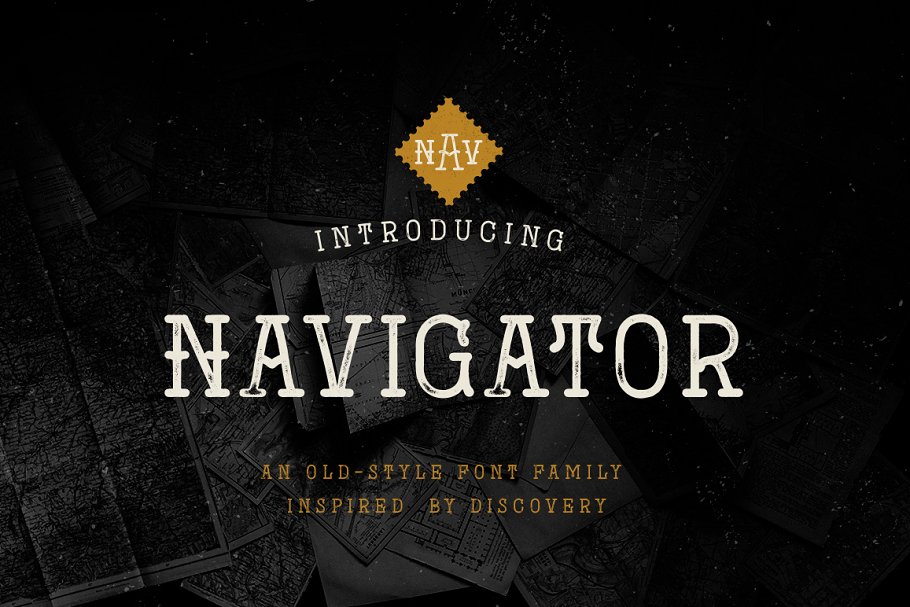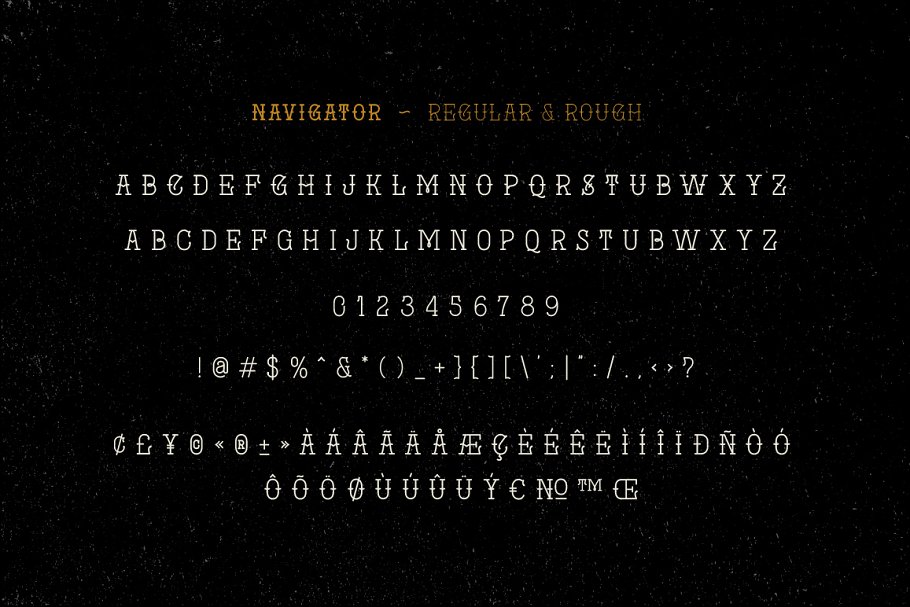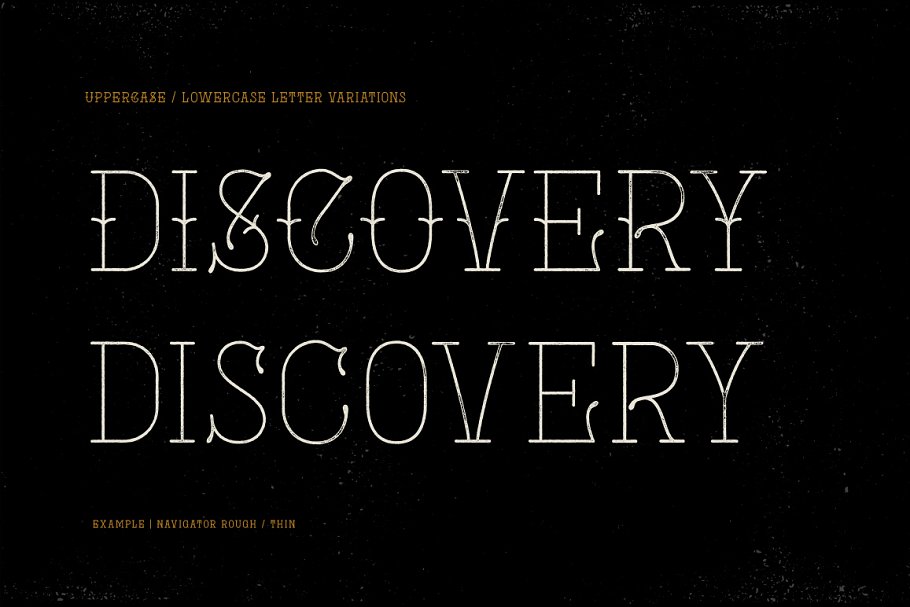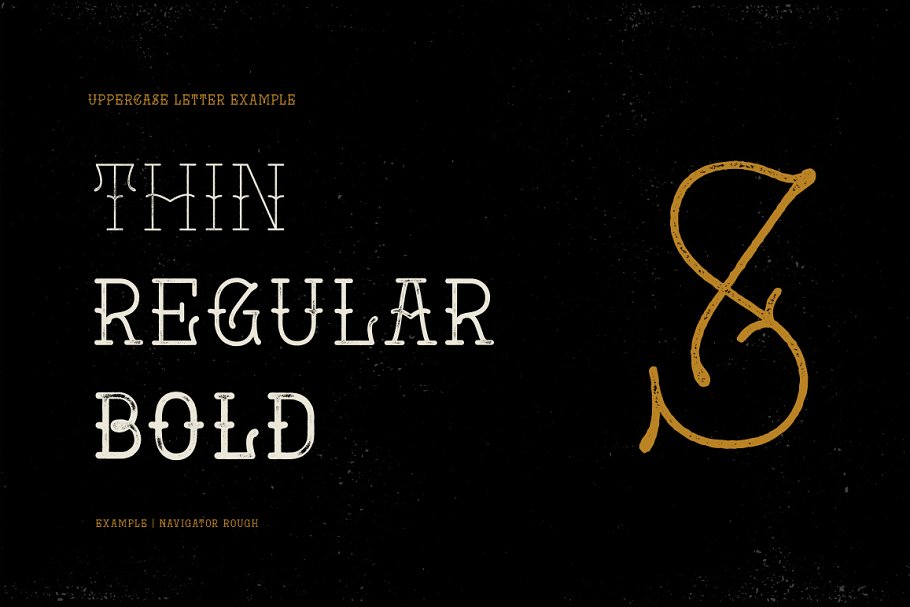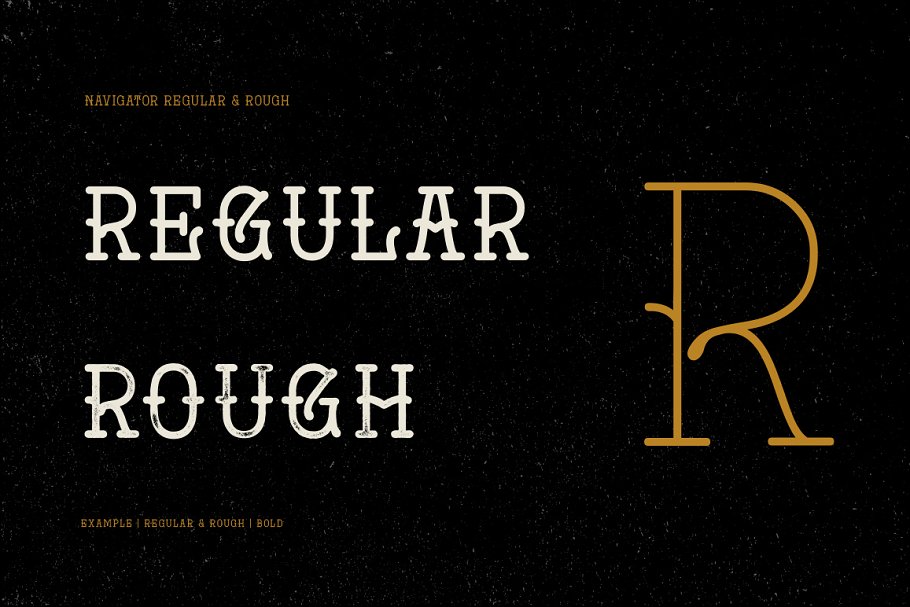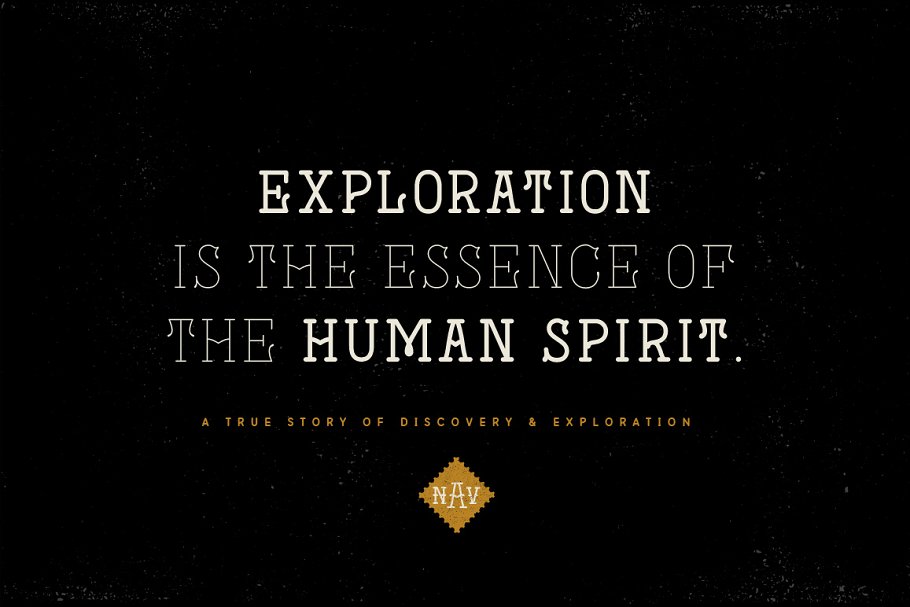
About the Navigator
80% OFF Navigator Family – Limited Time OfferThe Navigator family is inspired by the early explorers, the early sailors with their old-style tattoos and the cowboys in the old west, I mashed up these to styles to create the Navigator display family, It has a vintage feel with a more modern day approach, Use the regular styles to give your artwork a more clean look and feel or the rough styles to take on the more vintage old-style
This family is great for display use on posters, packaging, editorial and logos, It is created with the designer in mind to have some fun and mix up some great looking Upper / Lower case combinations, The Navigator hand font is an informal, rounded sans-serif that works perfectly with the Navigator display fonts to create beautiful logo and type lockups